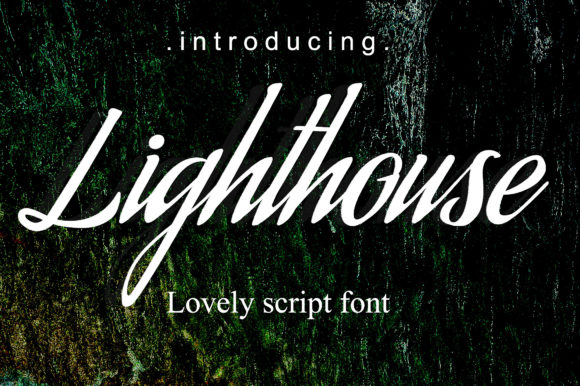
Introducing Lighthouse Font: A Culinary Masterpiece for Your Food Packaging
Savor the exquisite taste of Lighthouse Font, a culinary masterpiece crafted for food packaging that captivates the senses and ignites taste buds.
Indulge in the art of Lighthouse, a script font that dances gracefully upon your packaging, inviting customers to embark on a gastronomic journey. With its elegant curves and flowing strokes, Lighthouse transforms ordinary packaging into an extraordinary canvas of culinary delight.
Experience the allure of Lighthouse, a font that whispers tales of handcrafted goodness and artisanal expertise. Each letter, meticulously designed, exudes an aura of authenticity, evoking the warmth of a family kitchen and the passion of culinary masters.
Elevate your food packaging to a new realm of sophistication with Lighthouse. Its enchanting charm enhances the allure of your products, enticing customers with a promise of delectable treats within. Whether you're a seasoned chef or a home baker, Lighthouse becomes your culinary muse, inspiring you to create packaging that tantalizes taste buds and leaves a lasting impression.
Lighthouse is more than just a font; it's an expression of your culinary artistry. Its versatility lends itself to a symphony of packaging designs, from rustic and earthy to modern and minimalist. Let your creativity soar as you explore endless possibilities, transforming your packaging into a symphony of visual delight.
Unleash the power of Lighthouse and watch your food packaging transform into an irresistible invitation to culinary bliss. Indulge in the art of Lighthouse and discover the true essence of food packaging, where aesthetics and taste unite to create a symphony of perfection.}